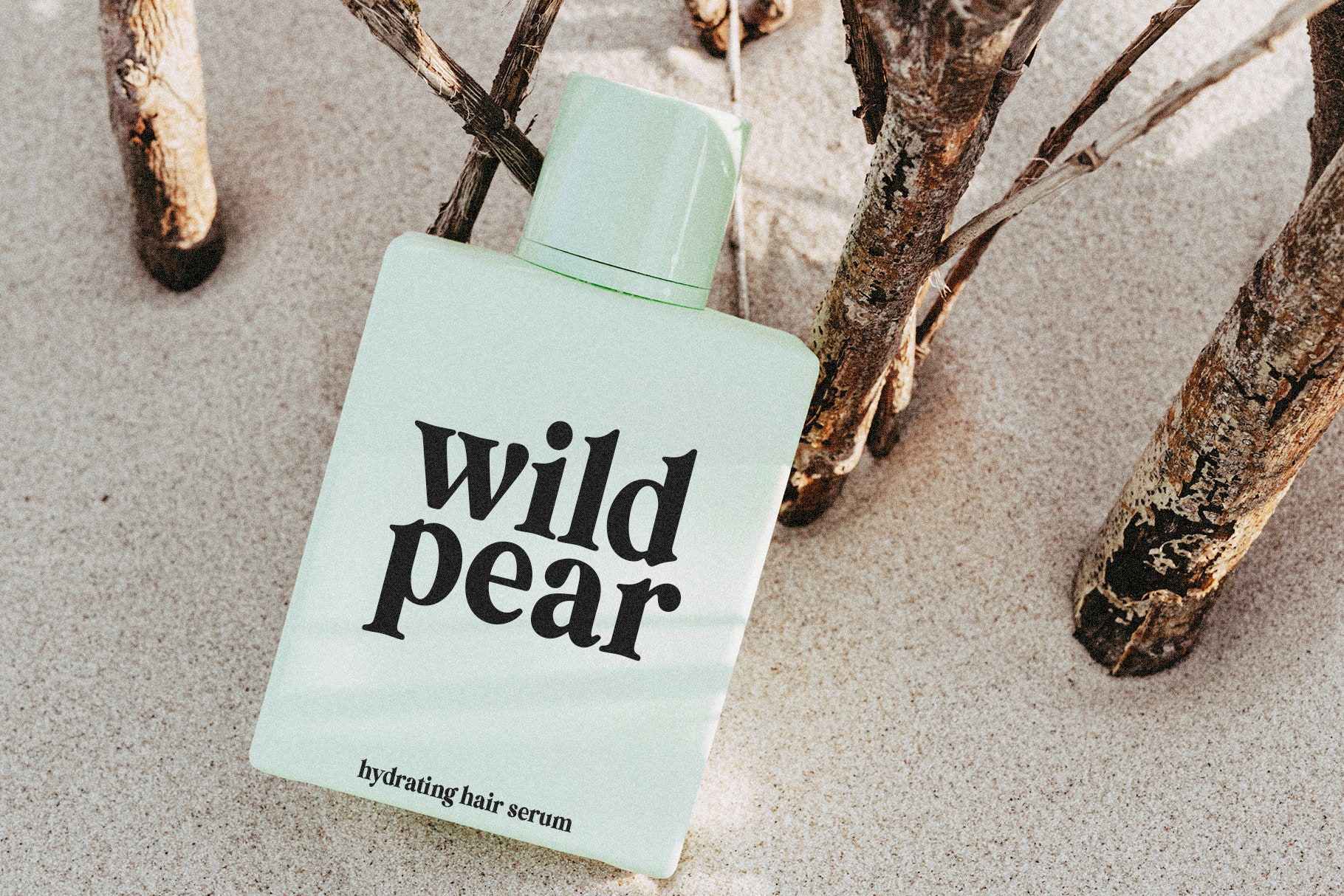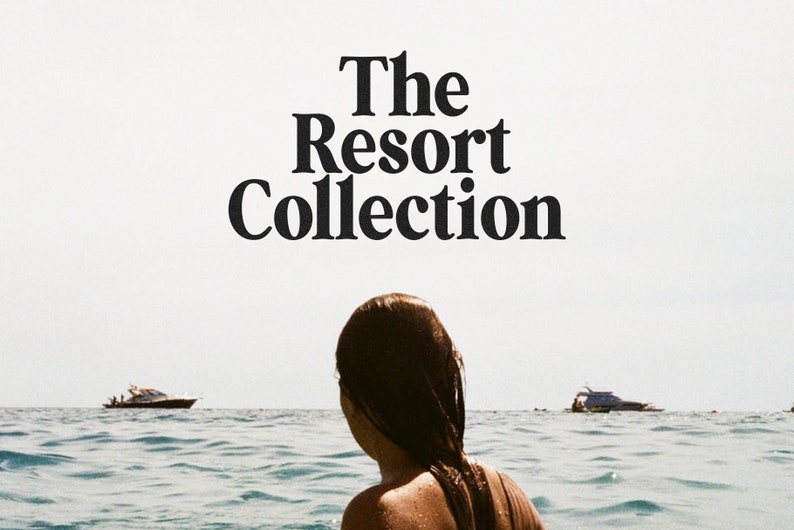
West Avenue Font
West Avenue Font - With its alternate letters and curvy swashes, this. Commercial use for this font is. Think wild mango with a twist! Web west avenue is perfect for: Web west avenue is a classy serif font with a handful of curvy ligatures. West avenue is a chic font that combines the look of both a traditional and modern serif. Web west avenue is a chic font that combines the look of both a traditional and modern serif. Logos, branding, wedding invitations, cricut projects, shirts, business cards, greeting cards, posters, magazines, social media and more! This font is both bold and elegant. Web the west avenue font by ka design seamlessly combines boldness and elegance, creating a vintage serif typeface that stands out in any context.
Web west avenue is perfect for: Think wild mango with a twist! Web the west avenue font by ka design seamlessly combines boldness and elegance, creating a vintage serif typeface that stands out in any context. This font is both bold and elegant. Web west avenue is a chic font that combines the look of both a traditional and modern serif. Either way, it is sure to bring attention to your. With its alternate letters and curvy swashes, this. West avenue is a chic font that combines the look of both a traditional and modern serif. Commercial use for this font is. Web west avenue is a classy serif font with a handful of curvy ligatures.
Commercial use for this font is. West avenue is a chic font that combines the look of both a traditional and modern serif. Web west avenue is perfect for: Logos, branding, wedding invitations, cricut projects, shirts, business cards, greeting cards, posters, magazines, social media and more! Web the west avenue font by ka design seamlessly combines boldness and elegance, creating a vintage serif typeface that stands out in any context. Web west avenue is a classy serif font with a handful of curvy ligatures. Think wild mango with a twist! Web west avenue is a chic font that combines the look of both a traditional and modern serif. With its alternate letters and curvy swashes, this. This font is both bold and elegant.
Web the west avenue font by ka design seamlessly combines boldness and elegance, creating a vintage serif typeface that stands out in any context. Logos, branding, wedding invitations, cricut projects, shirts, business cards, greeting cards, posters, magazines, social media and more! This font is both bold and elegant. Web west avenue is perfect for: Think wild mango with a twist!
Web west avenue is a classy serif font with a handful of curvy ligatures. Think wild mango with a twist! West avenue is a chic font that combines the look of both a traditional and modern serif. With its alternate letters and curvy swashes, this. Web the west avenue font by ka design seamlessly combines boldness and elegance, creating a.
Either way, it is sure to bring attention to your. Logos, branding, wedding invitations, cricut projects, shirts, business cards, greeting cards, posters, magazines, social media and more! Think wild mango with a twist! Web the west avenue font by ka design seamlessly combines boldness and elegance, creating a vintage serif typeface that stands out in any context. Web west avenue.
Web west avenue is a classy serif font with a handful of curvy ligatures. Commercial use for this font is. Think wild mango with a twist! Either way, it is sure to bring attention to your. Logos, branding, wedding invitations, cricut projects, shirts, business cards, greeting cards, posters, magazines, social media and more!
Web west avenue is perfect for: Web west avenue is a classy serif font with a handful of curvy ligatures. This font is both bold and elegant. With its alternate letters and curvy swashes, this. Either way, it is sure to bring attention to your.
Logos, branding, wedding invitations, cricut projects, shirts, business cards, greeting cards, posters, magazines, social media and more! Either way, it is sure to bring attention to your. Web the west avenue font by ka design seamlessly combines boldness and elegance, creating a vintage serif typeface that stands out in any context. This font is both bold and elegant. Web west.
Think wild mango with a twist! Either way, it is sure to bring attention to your. Web west avenue is a classy serif font with a handful of curvy ligatures. Web west avenue is perfect for: Logos, branding, wedding invitations, cricut projects, shirts, business cards, greeting cards, posters, magazines, social media and more!
West Avenue Font by KA Design
Web west avenue is a chic font that combines the look of both a traditional and modern serif. Commercial use for this font is. Web the west avenue font by ka design seamlessly combines boldness and elegance, creating a vintage serif typeface that stands out in any context. Either way, it is sure to bring attention to your. Web west.
Commercial use for this font is. This font is both bold and elegant. West avenue is a chic font that combines the look of both a traditional and modern serif. Web west avenue is perfect for: Think wild mango with a twist!
Logos, branding, wedding invitations, cricut projects, shirts, business cards, greeting cards, posters, magazines, social media and more! Commercial use for this font is. West avenue is a chic font that combines the look of both a traditional and modern serif. Think wild mango with a twist! This font is both bold and elegant.
Web West Avenue Is A Chic Font That Combines The Look Of Both A Traditional And Modern Serif.
Logos, branding, wedding invitations, cricut projects, shirts, business cards, greeting cards, posters, magazines, social media and more! Web west avenue is a classy serif font with a handful of curvy ligatures. This font is both bold and elegant. Think wild mango with a twist!